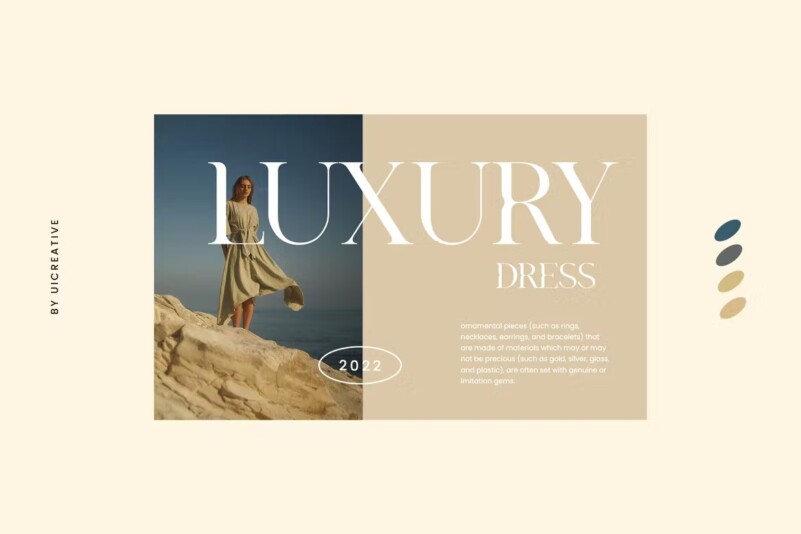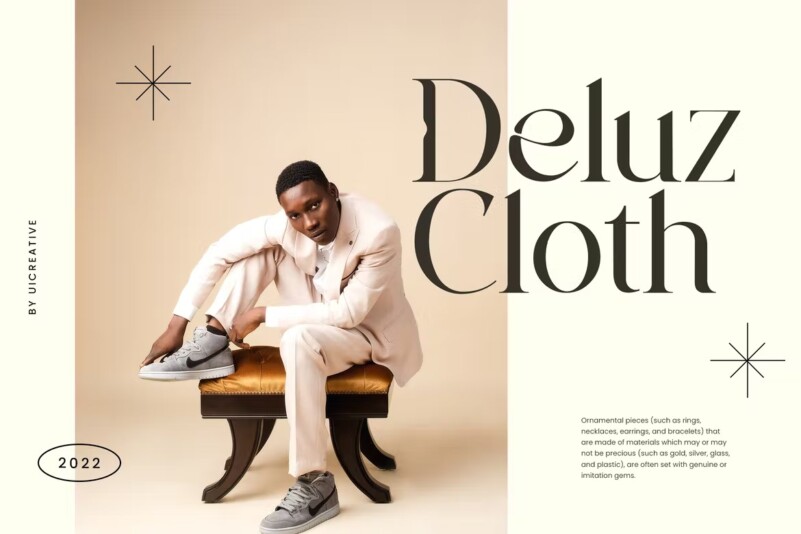
Supravitally Luxury Serif Font
This is our new product name Supravitally Luxury Serif Font . Modern Serif font which is beautiful, elegant and modern. This font is perfect for a wide variety of projects, such as signature, stationery, logo, wedding, typography quotes, magazine or book cover, website header, apparel, branding, packaging design , etc. Additionally, fashion-related branding or editorial design exhibits both masculine and feminine qualities